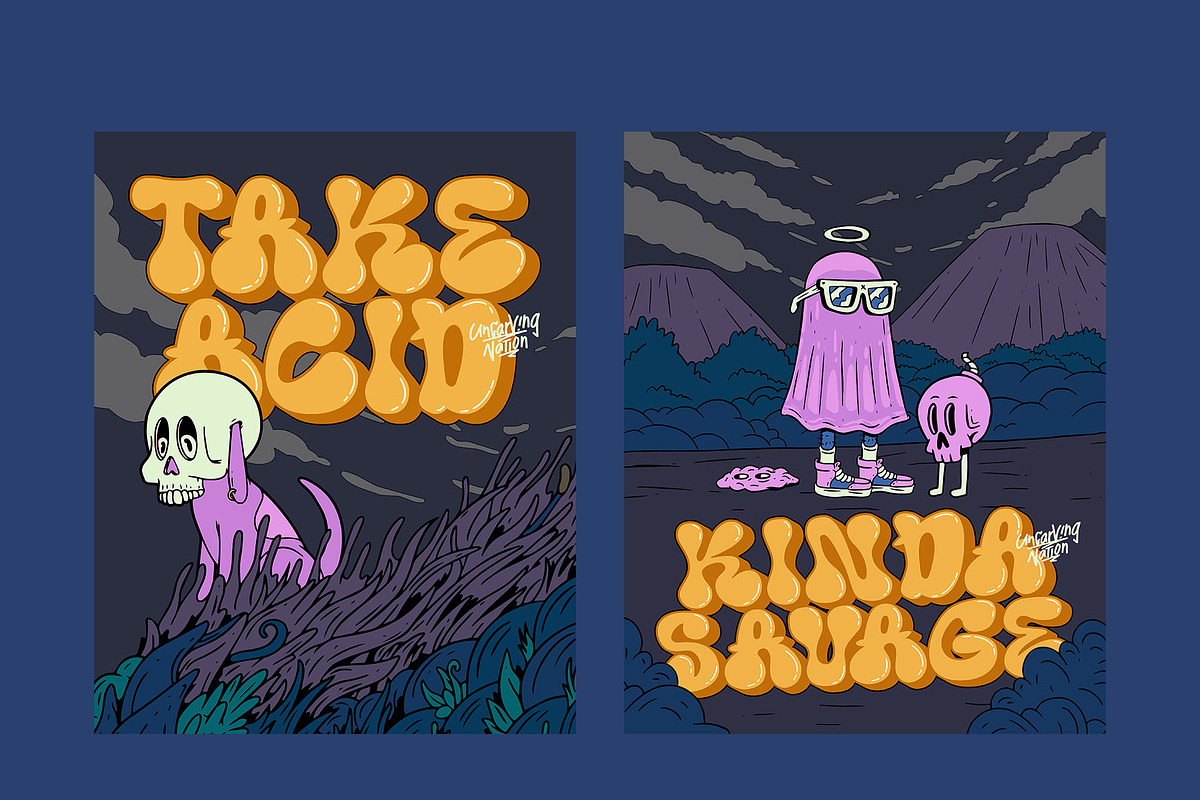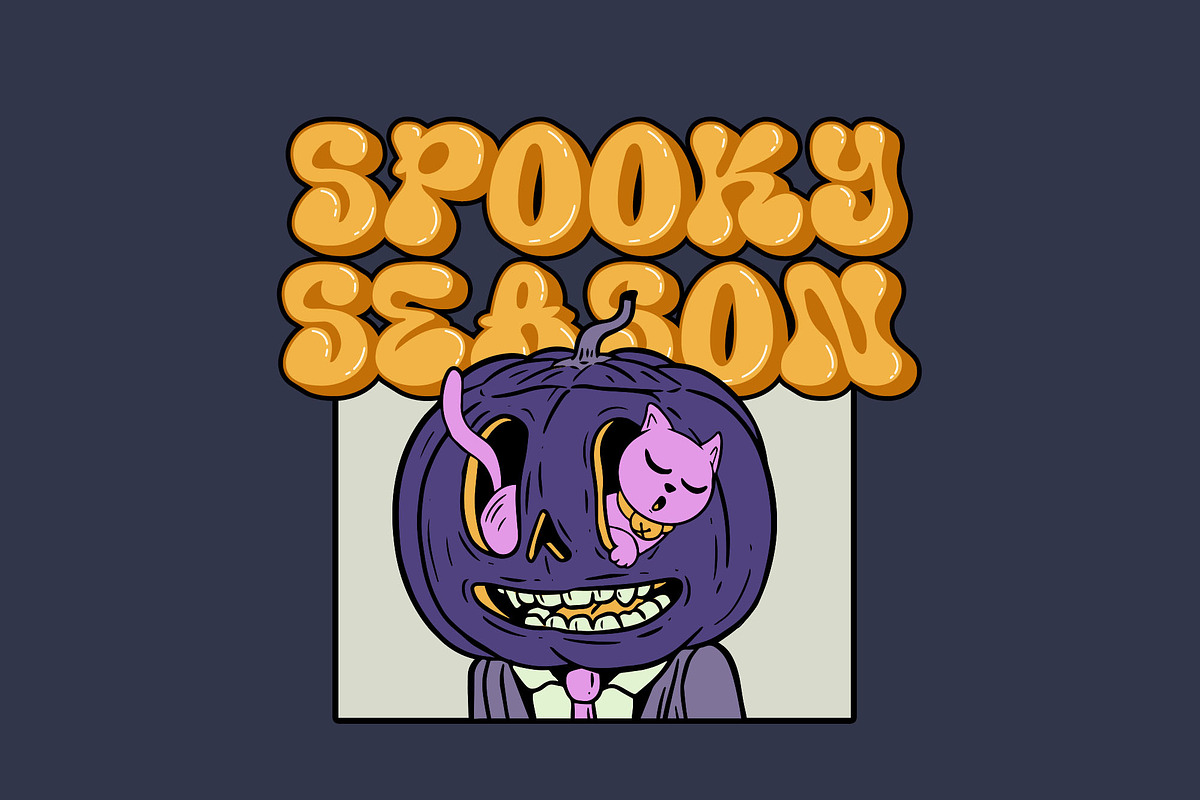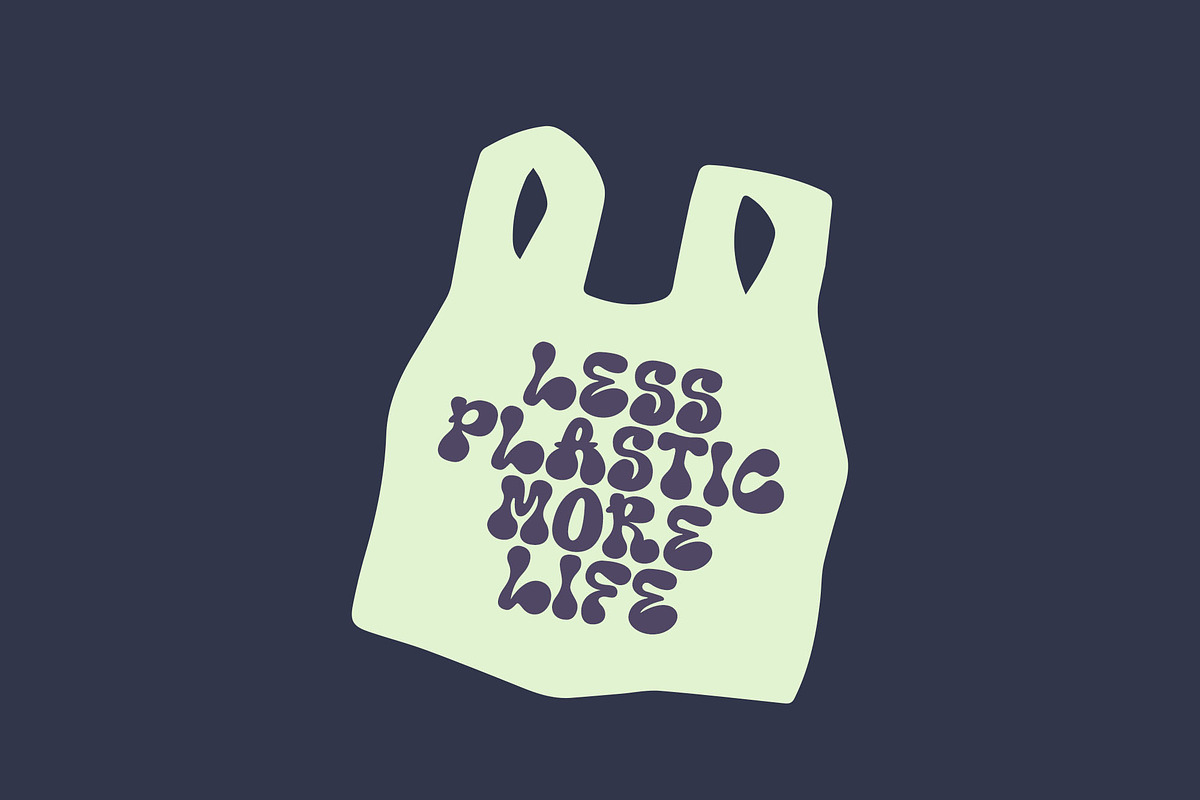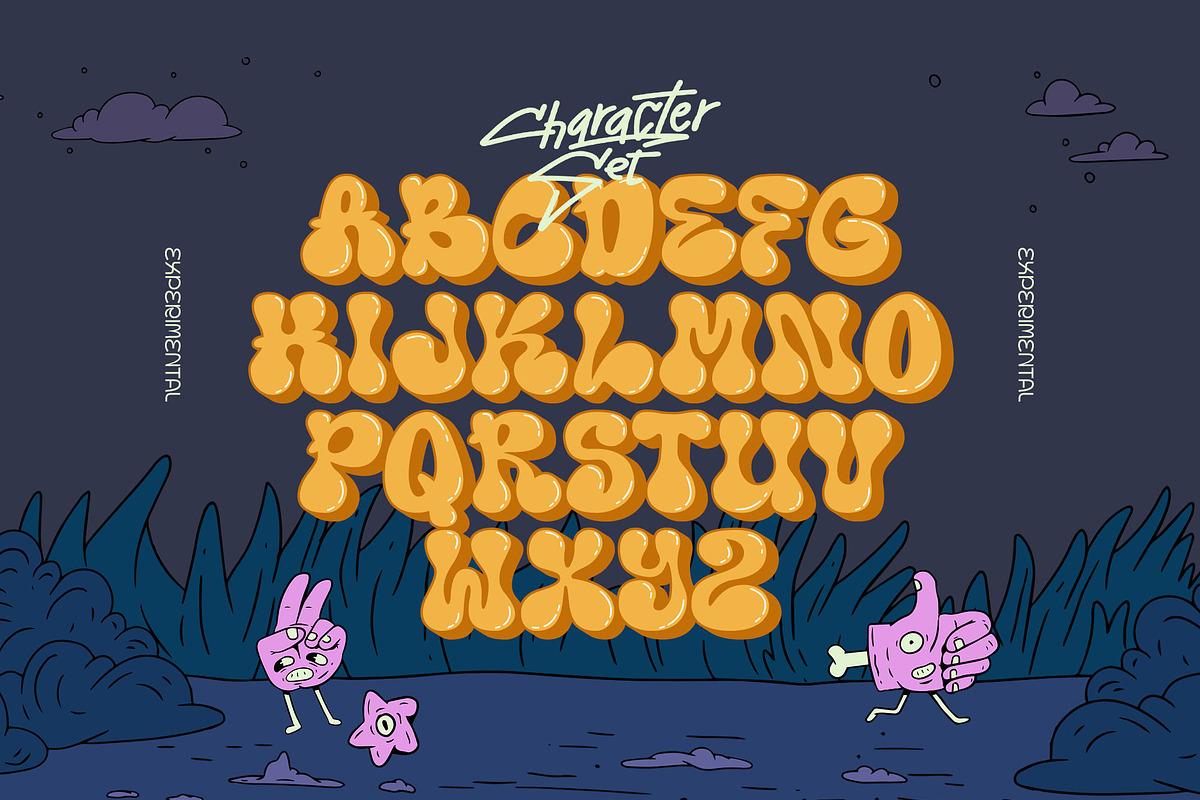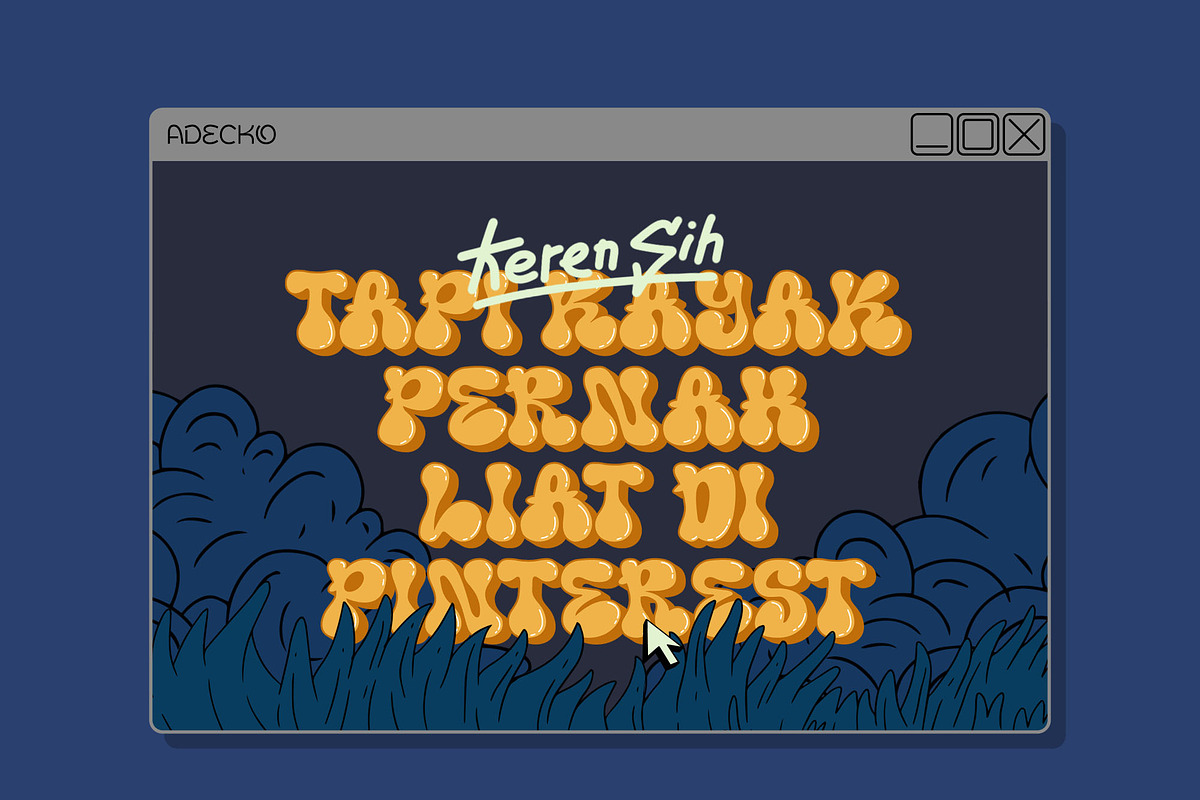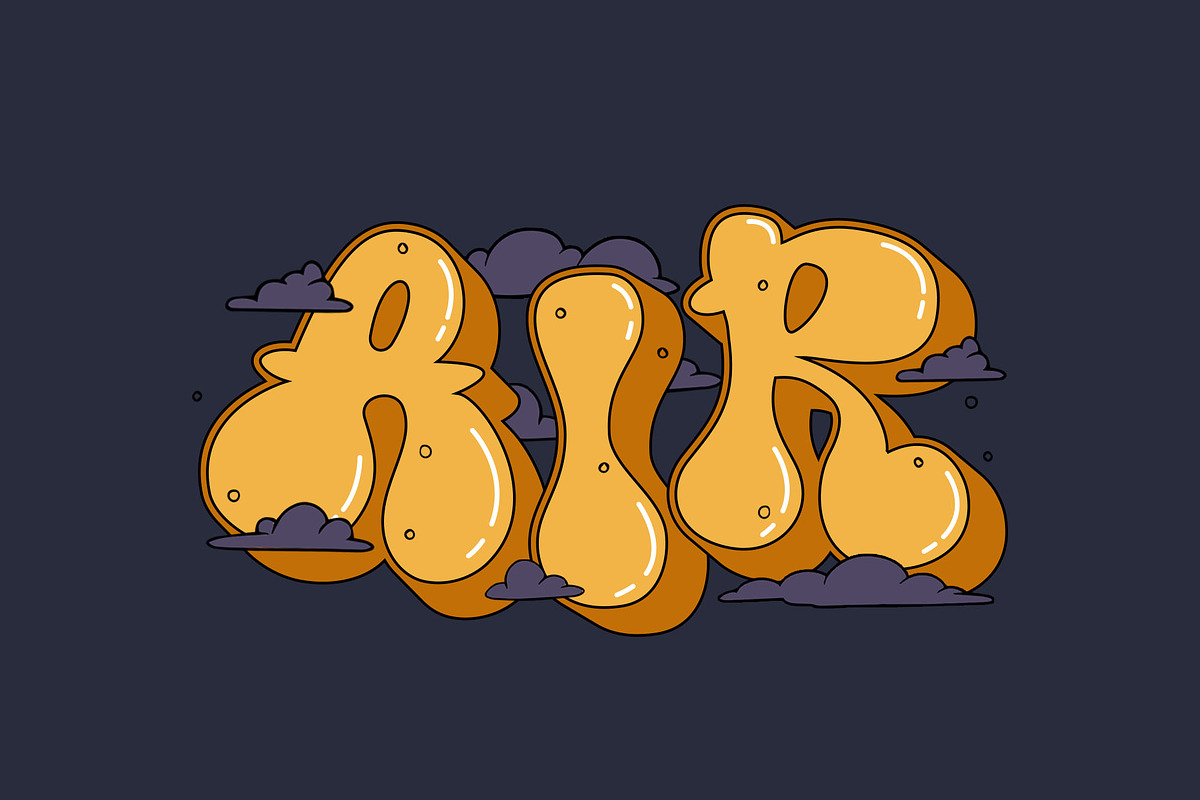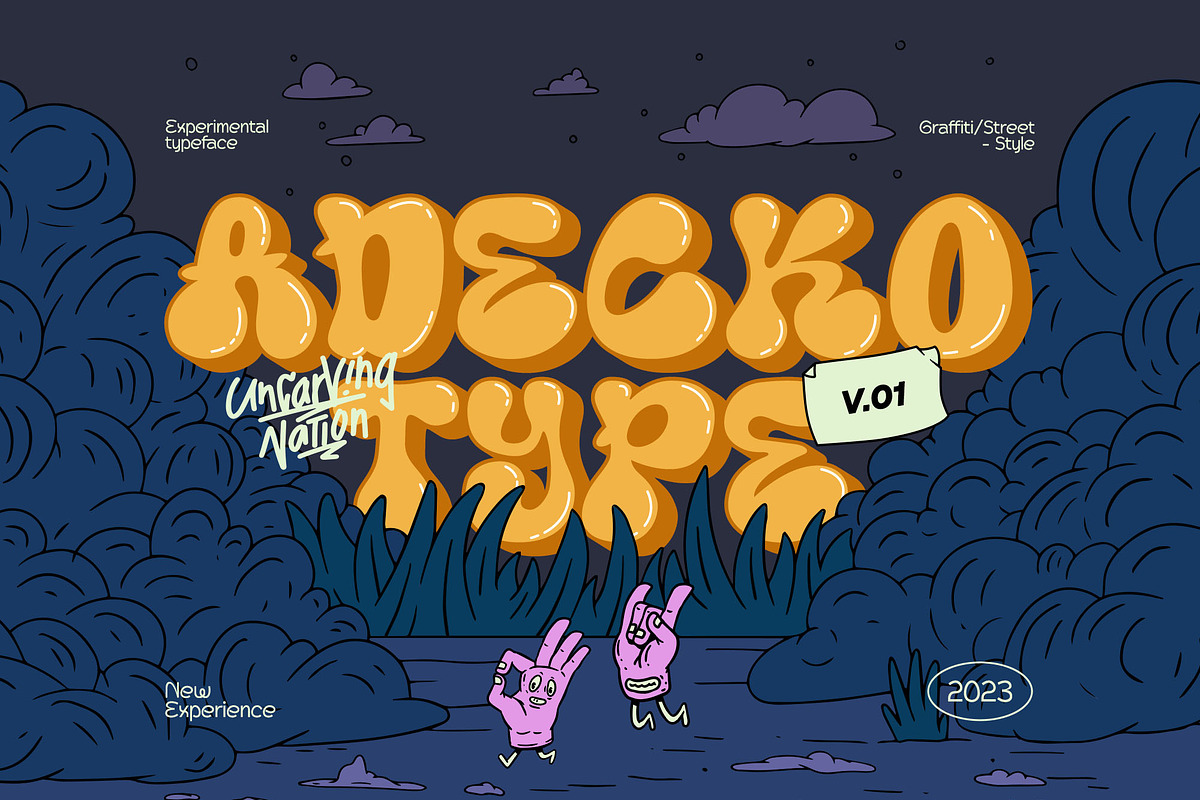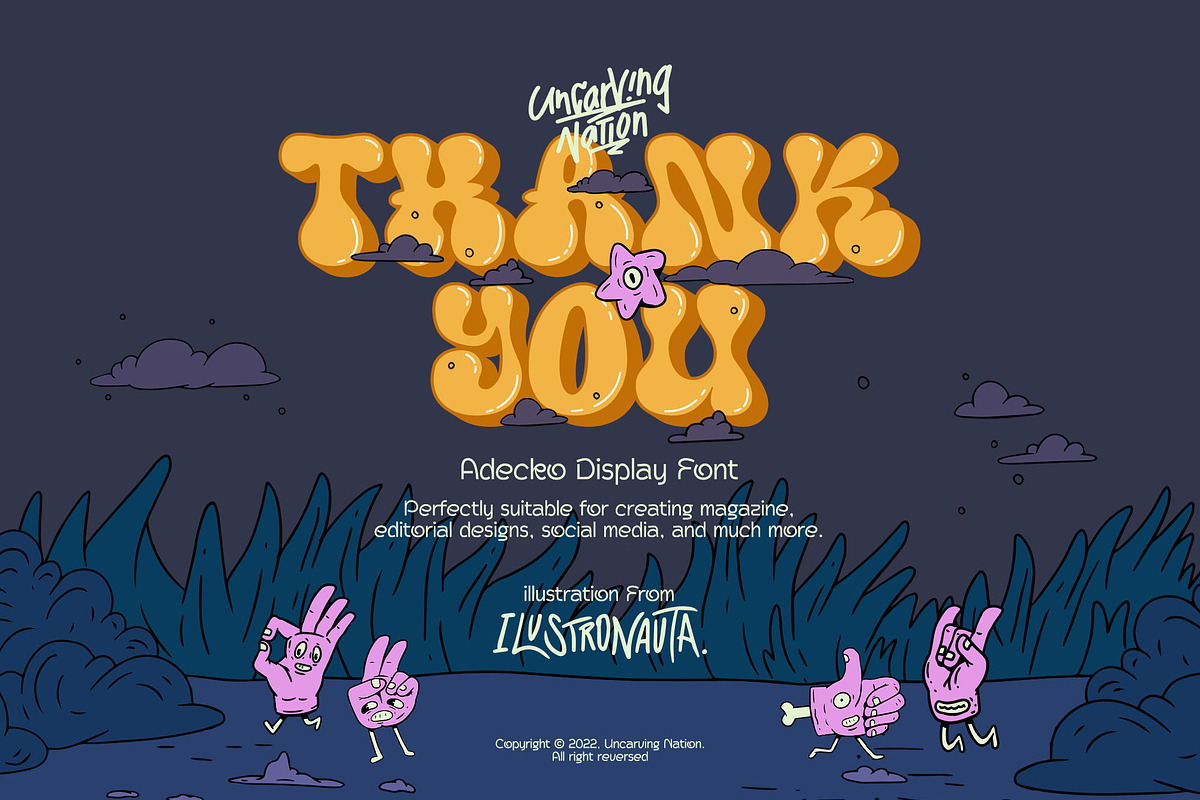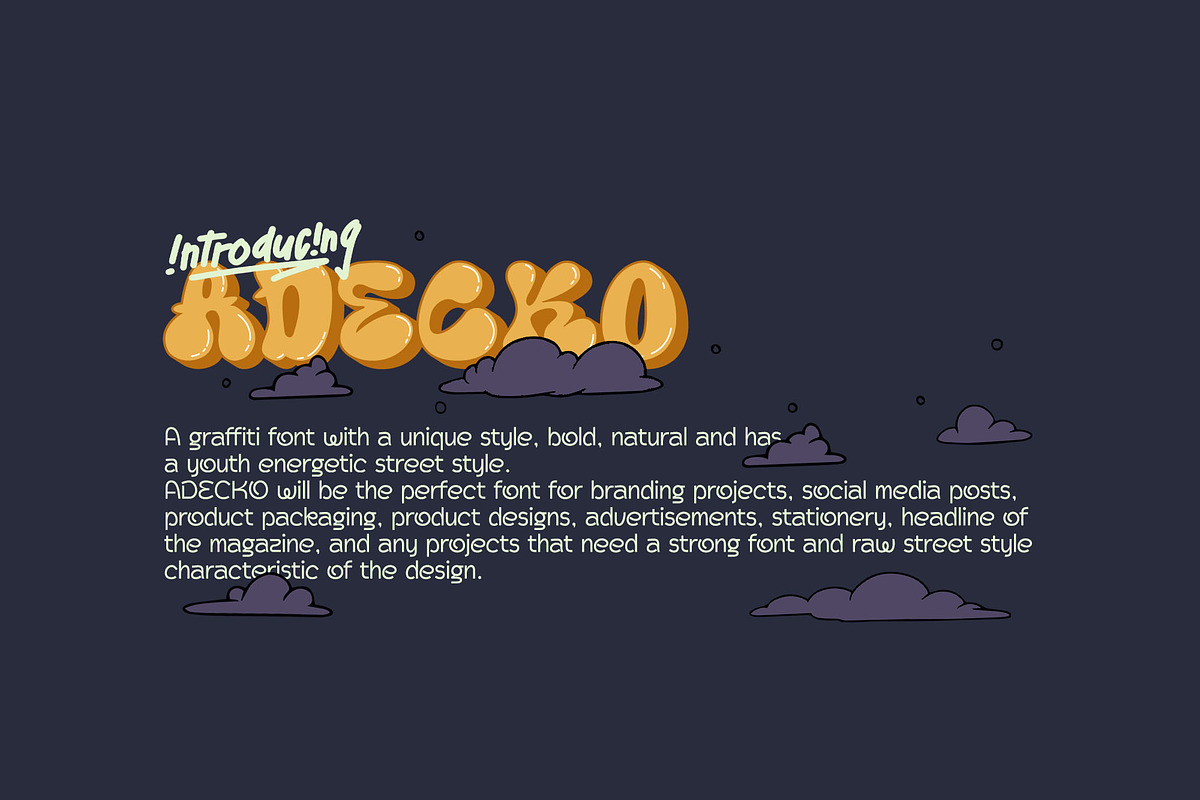
Adecko - Graffiti Display Font
About the Product "ADECKO" is a SVG font designed by uncarving Inspired by the Graffiti touch keeping the simplicity and unique shapes Great for use in your projects related to Street, Urban, Hiphop, virtual reality & much more!